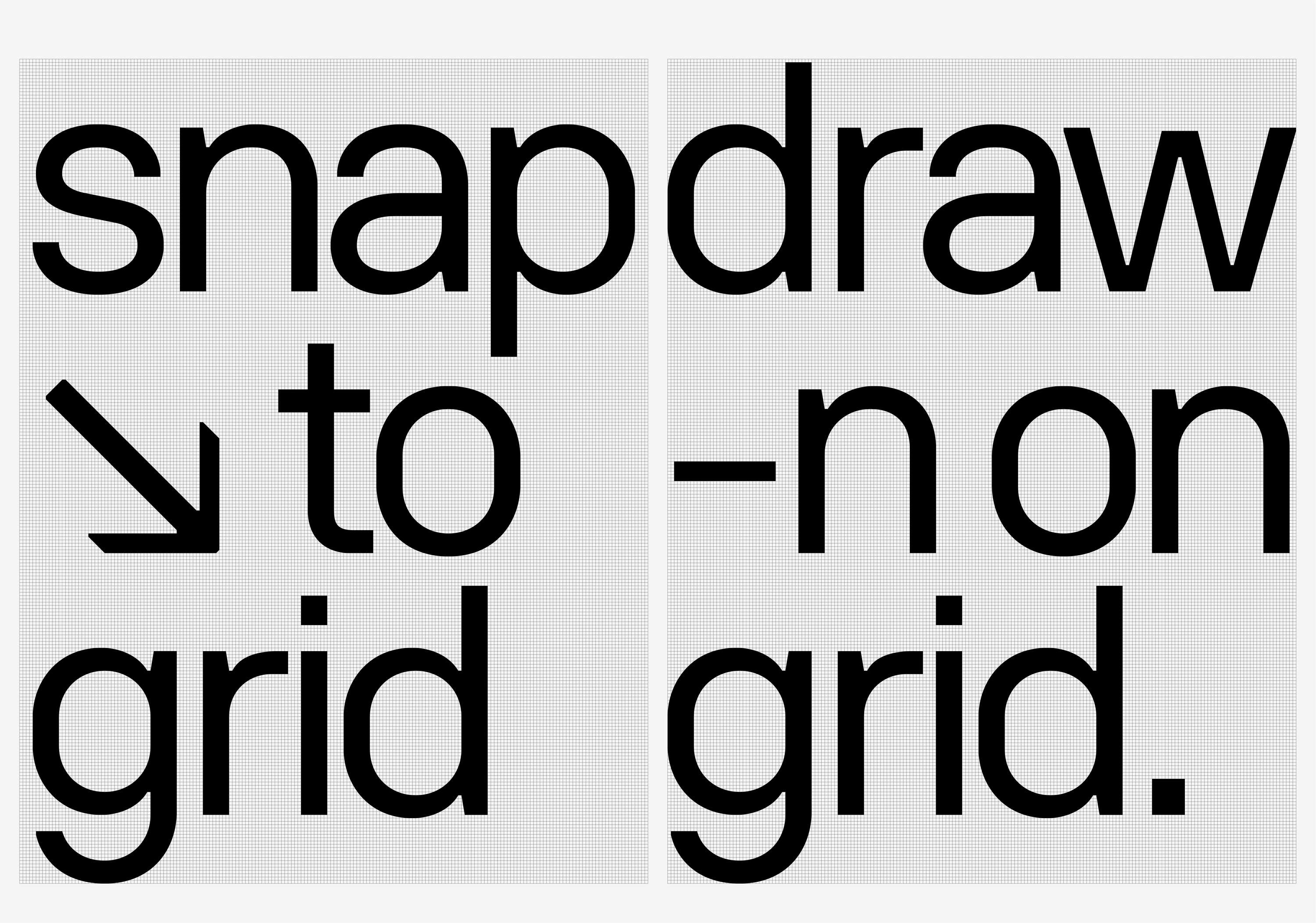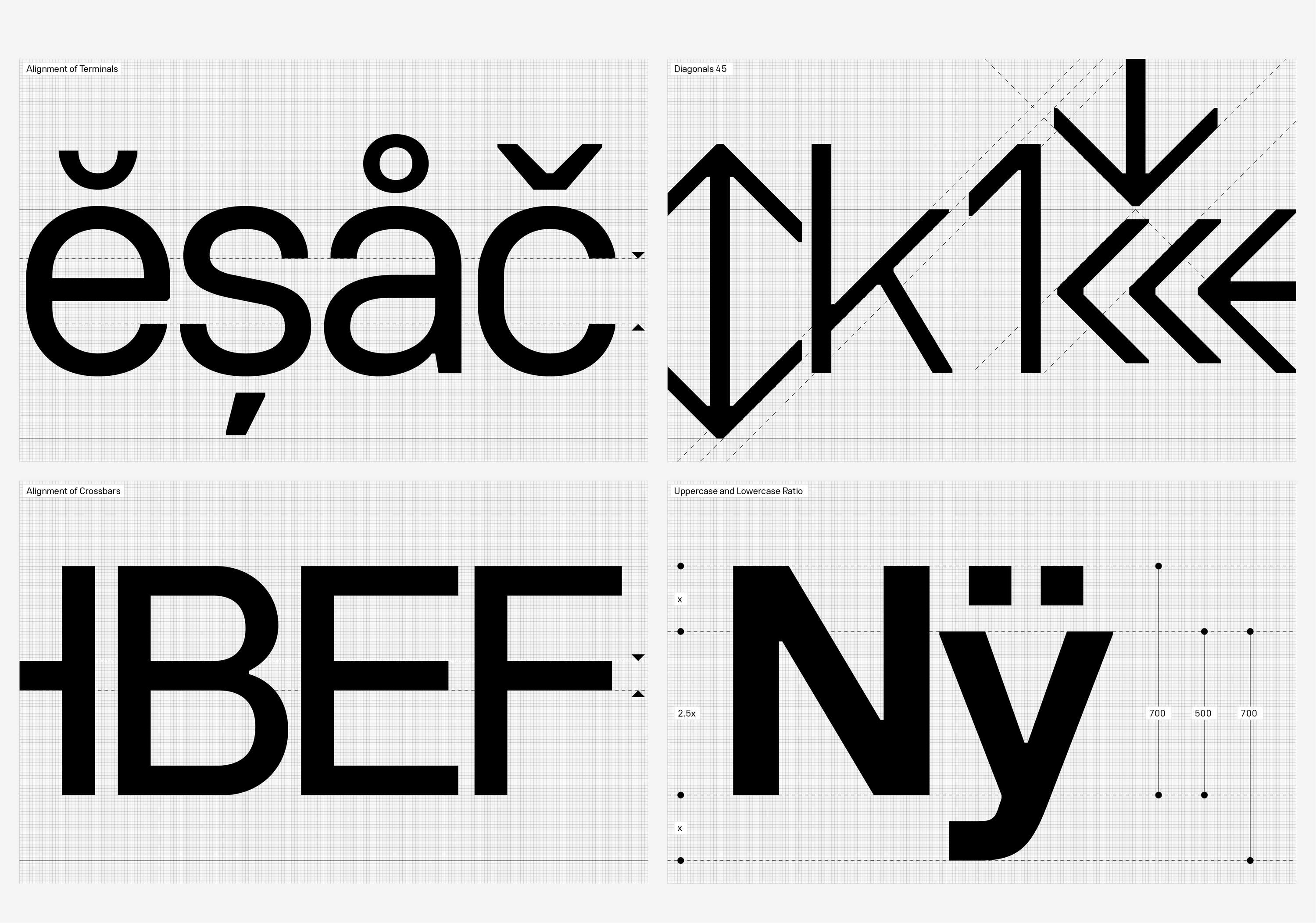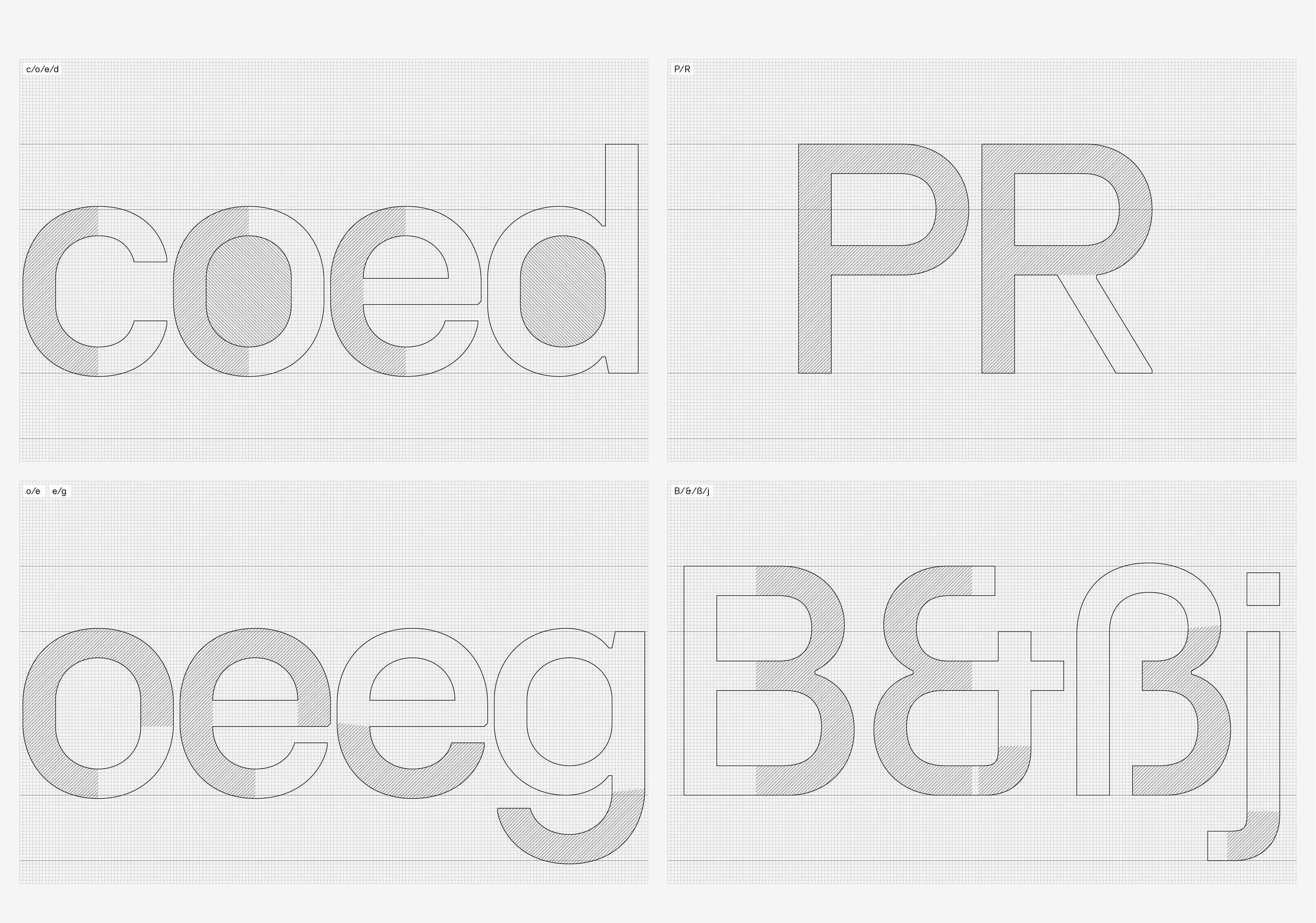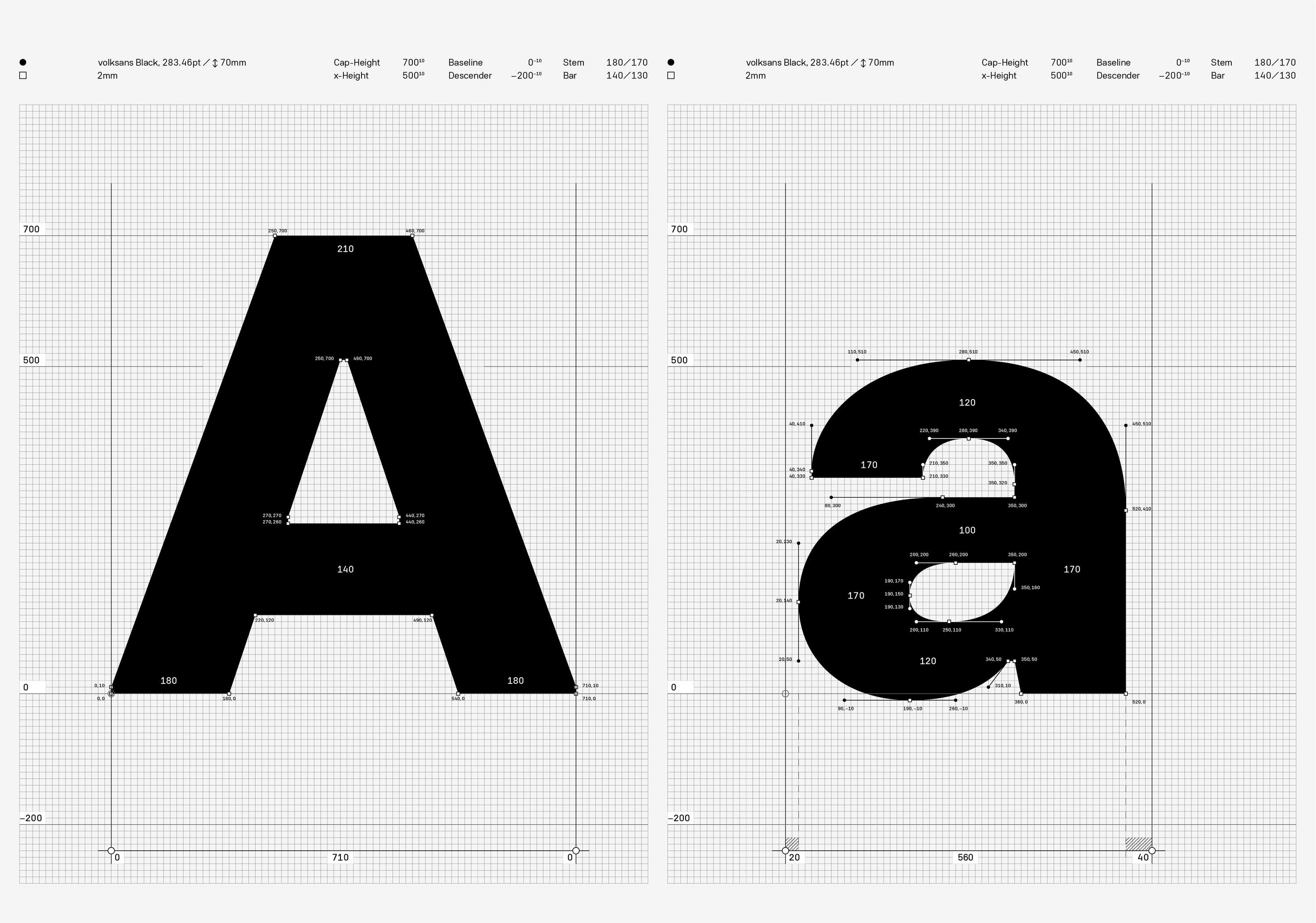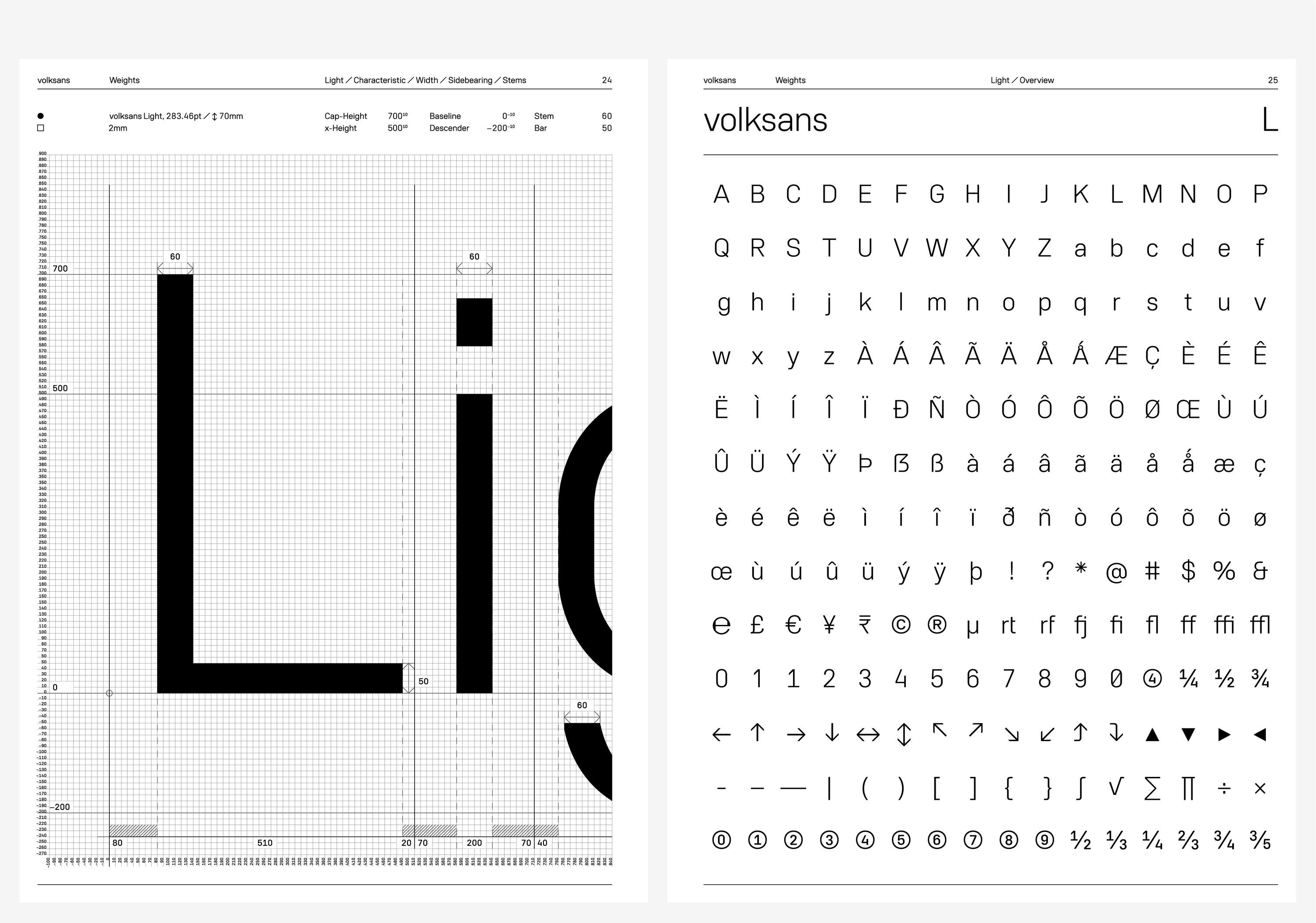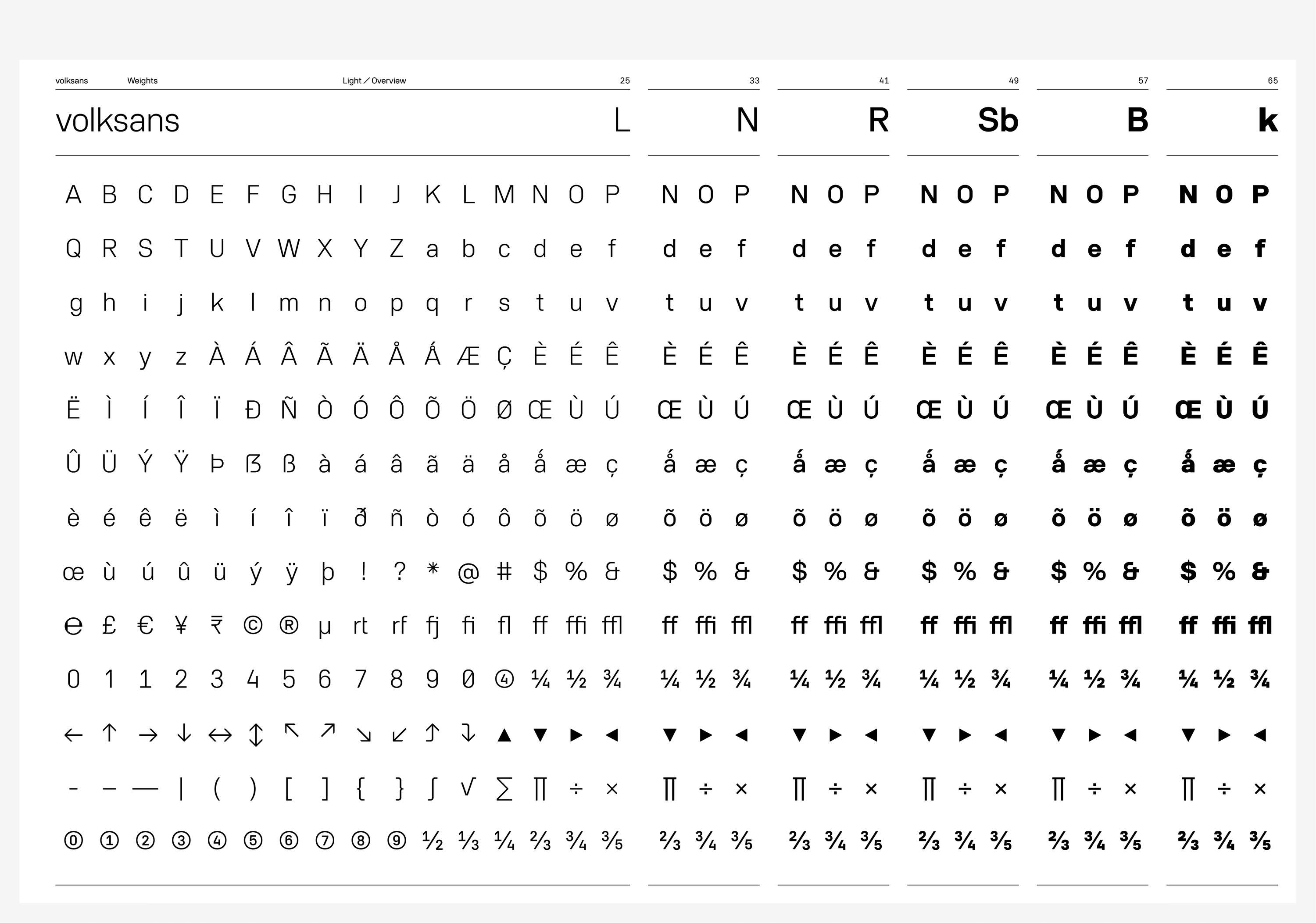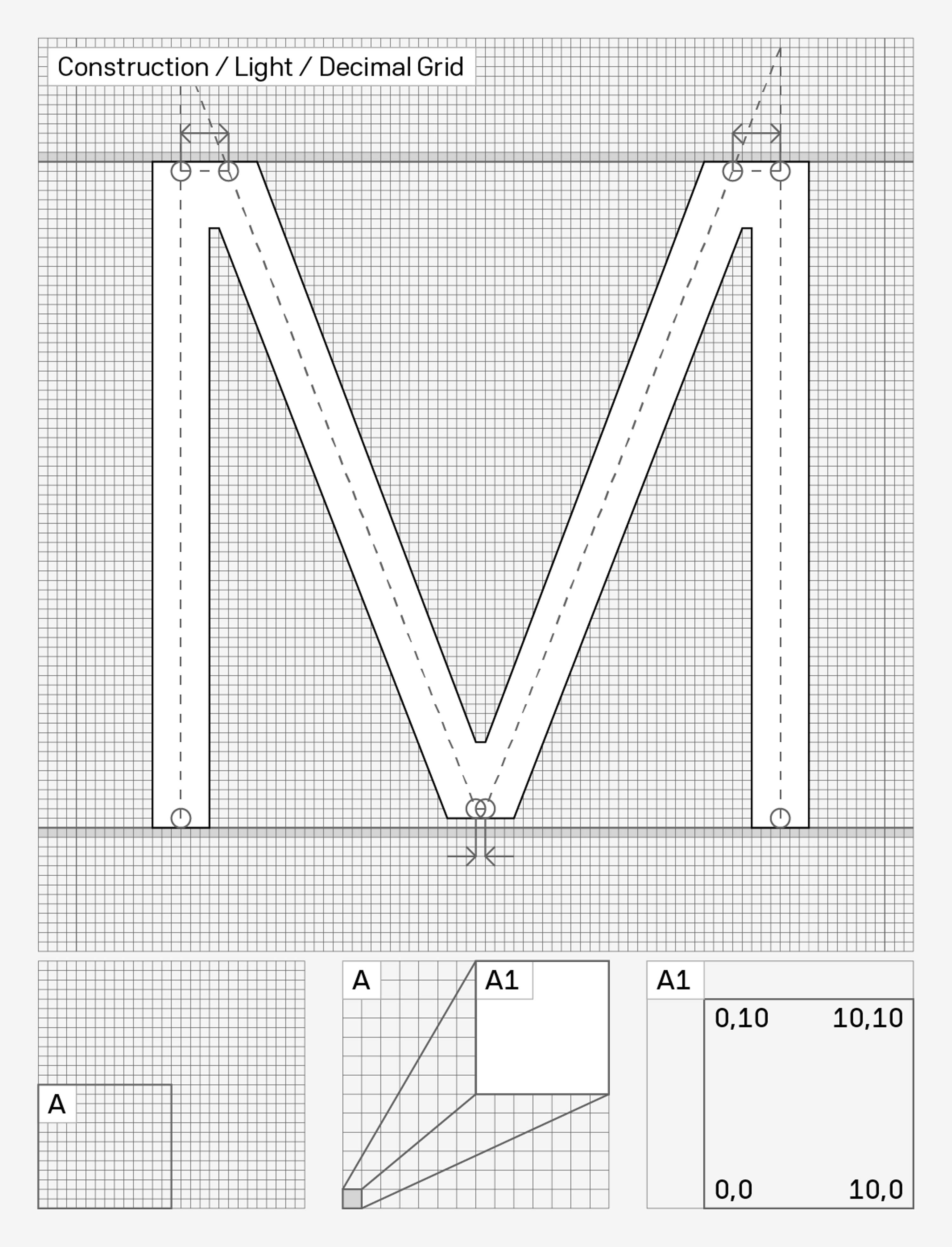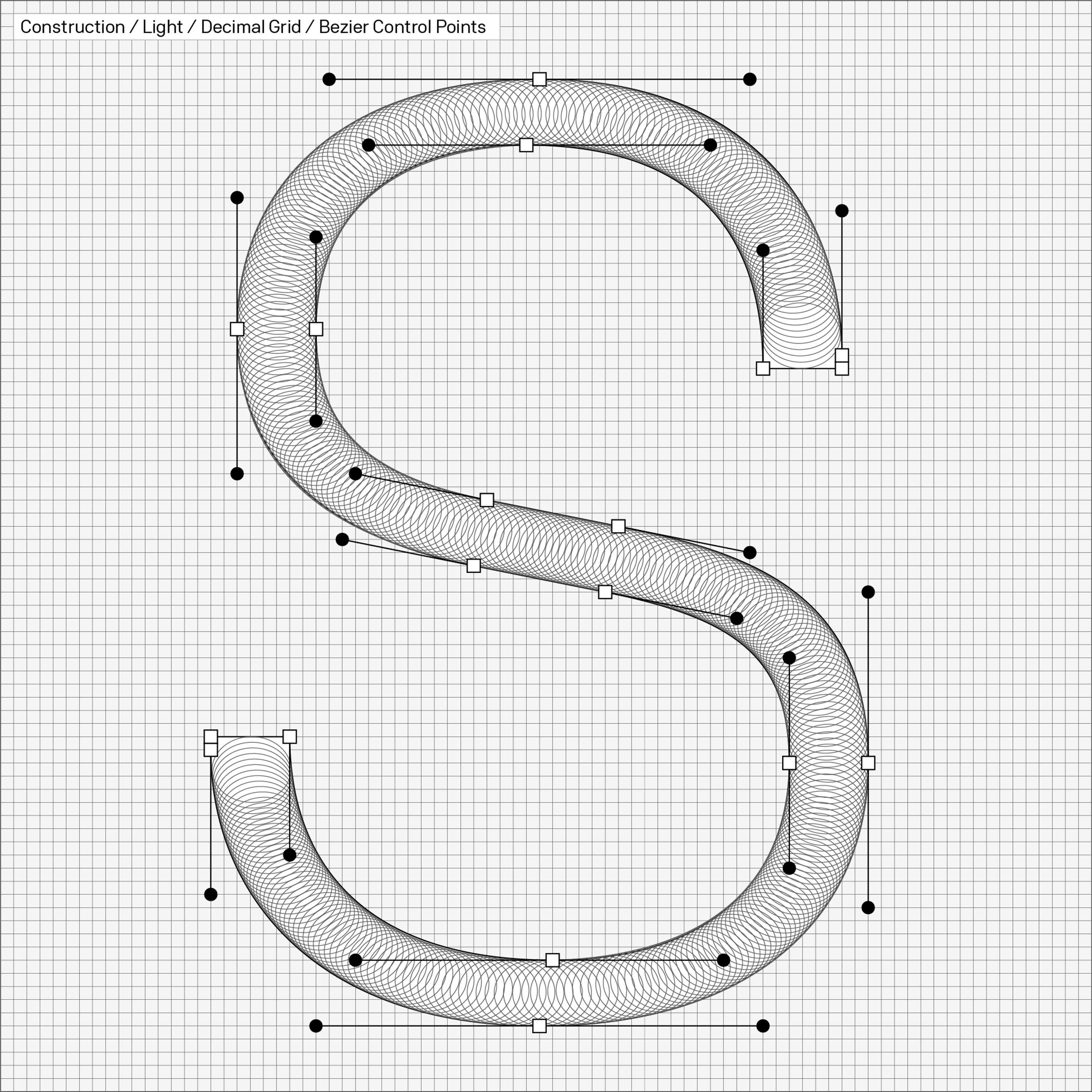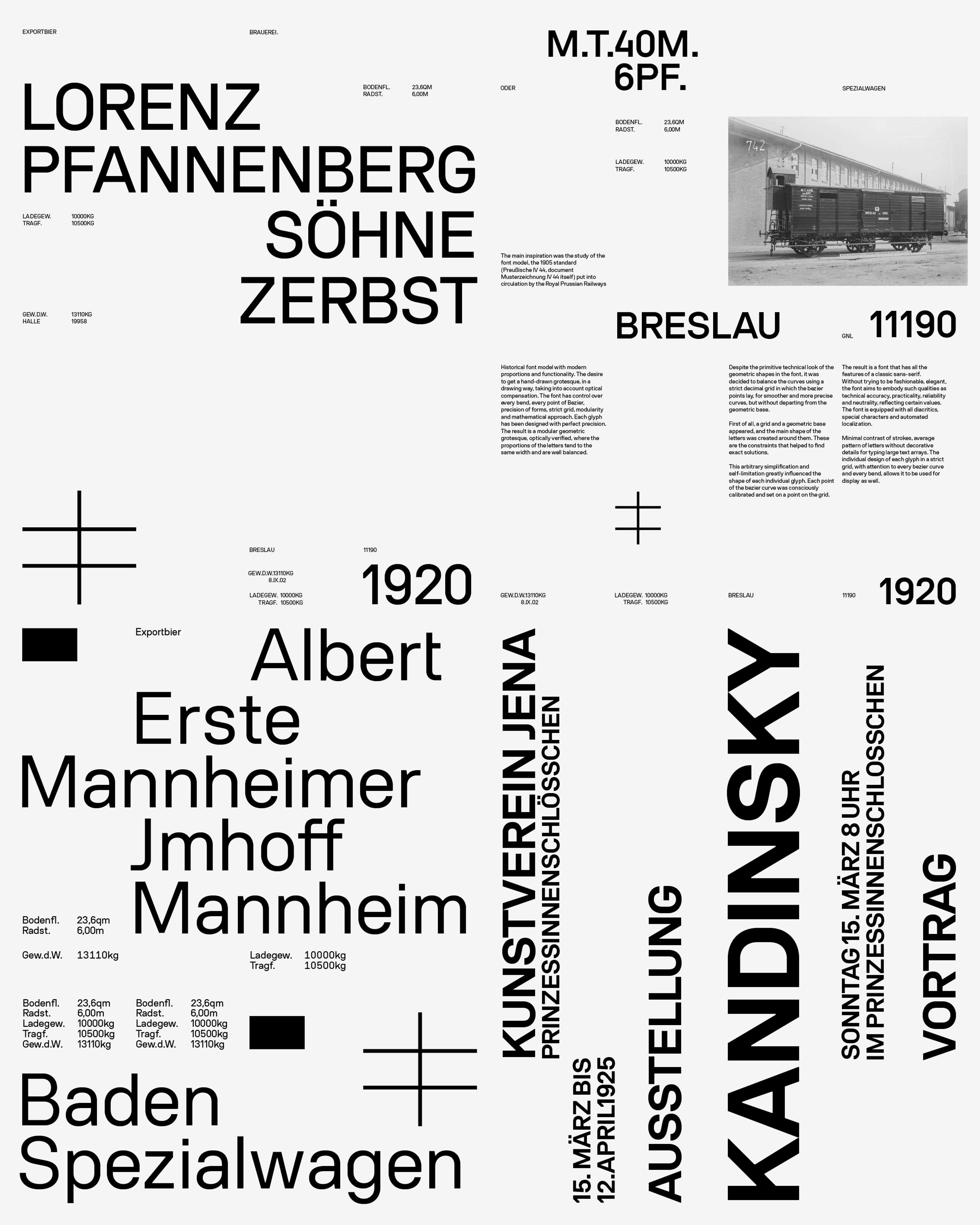
volksans / Typeface
• Radmir Volk
Historical font model with individual design of each glyph in a strict grid, with attention to every point of the Bezier curve and every shape
volksans / Typeface by Radmir Volk
About typeface
The main inspiration was the study of the font model, the 1905 standard (Preußische IV 44, document Musterzeichnung IV 44 itself) put into circulation by the Royal Prussian Railways
Historical font model with modern proportions and functionality. The desire to get a hand-drawn grotesque, in a drawing way, taking into account optical compensation. The font has control over every bend, every point of Bezier, precision of forms, strict grid, modularity and mathematical approach. Each glyph has been designed with perfect precision.
The result is a modular geometric grotesque, optically verified, where the proportions of the letters tend to the same width and are well balanced.
Despite the primitive technical look of the geometric shapes in the font, it was decided to balance the curves using a strict decimal grid in which the bezier points lay, for smoother and more precise curves, but without departing from the geometric base.
First of all, a grid and a geometric base appeared, and the main shape of the letters was created around them. These are the constraints that helped to find exact solutions.
This arbitrary simplification and self-limitation greatly influenced the shape of each individual glyph. Each point of the bezier curve was consciously calibrated and set on a point on the grid.
The result is a font that has all the features of a classic sans-serif.
Without trying to be fashionable, elegant, the font aims to embody such qualities as technical accuracy, practicality, reliability and neutrality, reflecting certain values. The font is equipped with all diacritics, special characters and automated localization.
Minimal contrast of strokes, average pattern of letters without decorative details for typing large text arrays. The individual design of each glyph in a strict grid, with attention to every bezier curve and every bend, allows it to be used for display as well.
Laconic, Modular, Geometric, Mechanical, Static, Strict. With polished shapes
Complete set includes 6 weights: Light, Normal, Regular, Semibold, Bold, Black